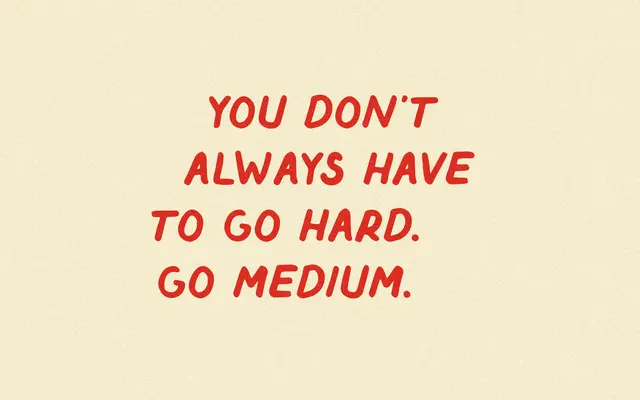
Barro
A casual handwriting script with rounded strokes and controlled irregularity, pitched at branding and packaging work that wants a human touch without looking homemade.
Rounded letterforms and subtle movement give it warmth without sacrificing legibility, sitting somewhere between a polished logotype script and a personal note. A single Regular weight covers the full use case, supplied as OTF, WOFF and WOFF2 with basic Latin and a limited set of accented characters across 150 glyphs. Suited to festival branding, product packaging and promotional materials where personality matters more than typographic range.
Barro is a casual handwriting script with rounded strokes and deliberate imperfection, placing it firmly in the informal handwritten script subcategory rather than formal calligraphic script.